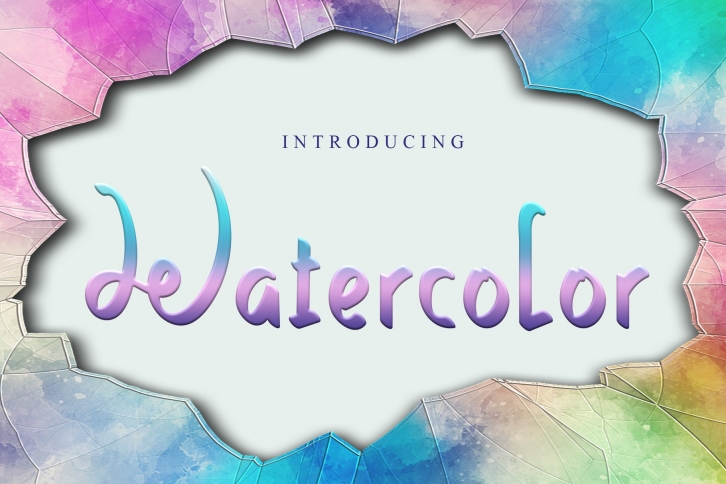
Watercolor is a gorgeous font that was realeased on September 29, 2021. The font can be used in many style contexts and design environments. Perfect for invitations, magazines, websites, logos, and more! It was designed by Giart Studios and the file size is 3.2 MB. Thanks for checking out this font!